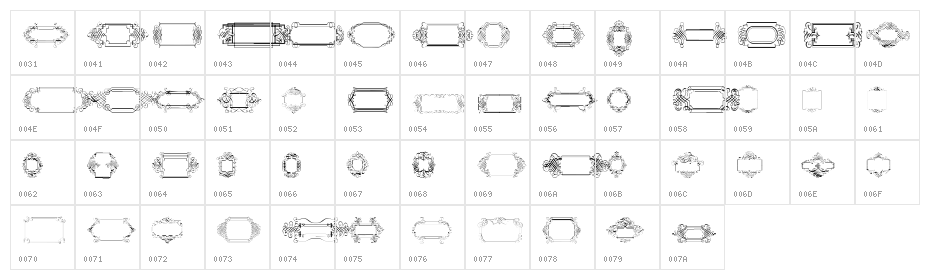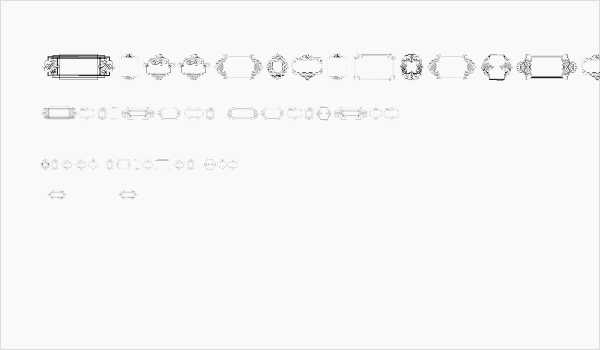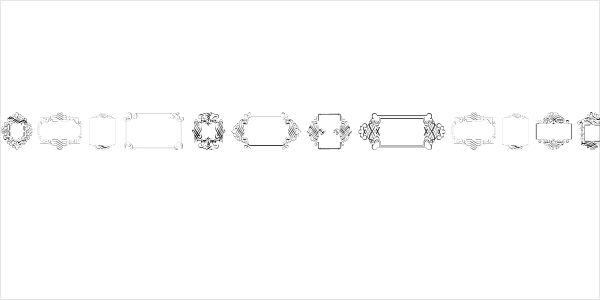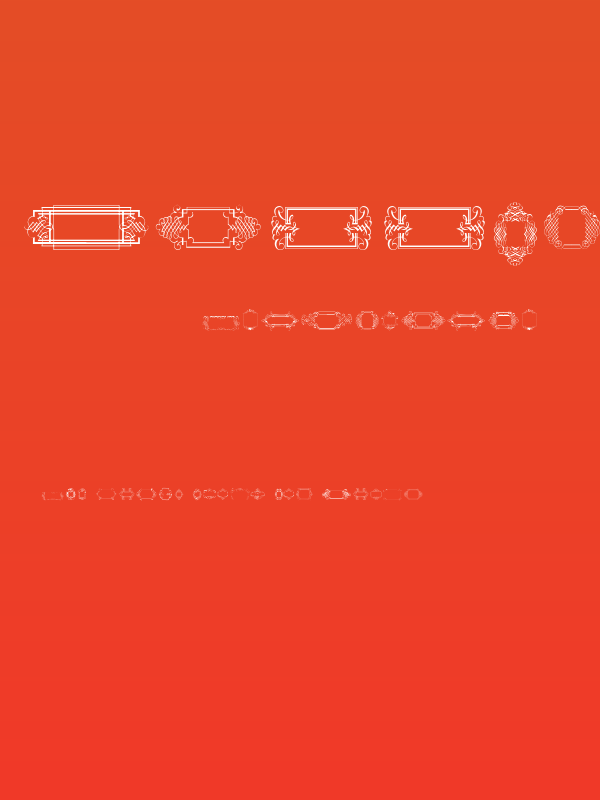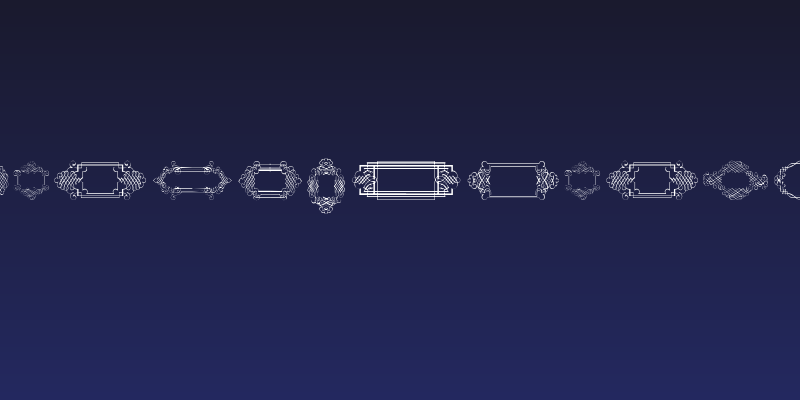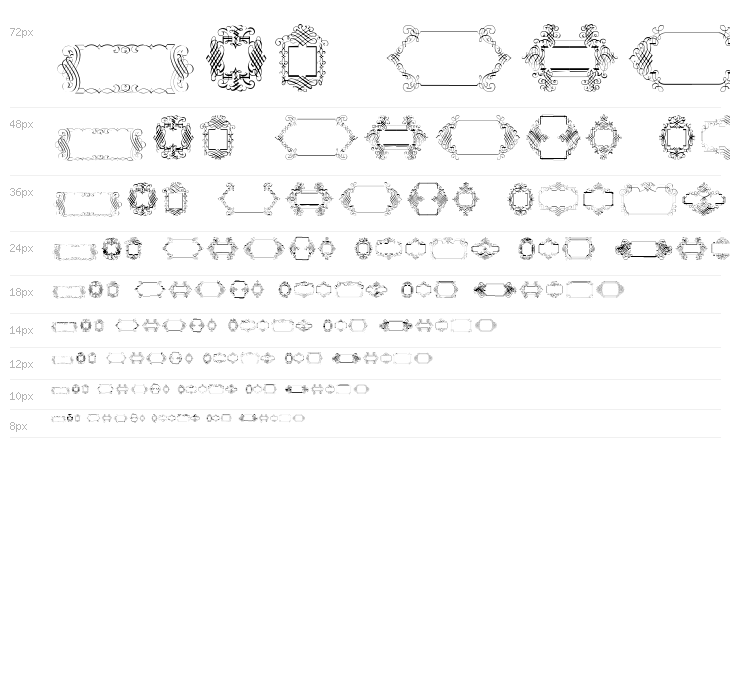
CalligraphicFramesSoft Font
A decorative collection of ornate, calligraphic frames with soft, flowing lines and intricate flourishes, designed for embellishing text or creating elegant borders.
| Overall Style | Decorative, Vintage, Elegant |
| Use Case | Frames, Borders, Decorative accents |
| Proposed Projects | Invitations, certificates, greeting cards, vintage labels, decorative borders for print or digital design. |